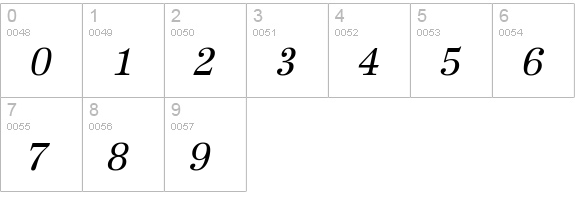
AntiquaStd-Italic is a distinctive, italic variant in the AntiquaStd typeface family \xE2\x80\x94 well suited to design and typography projects.
AntiquaStd-Italic is a classic and elegant font that exudes sophistication and timeless charm. With its graceful slanted style, this italic typeface adds a touch of refinement to any design project. The delicate curves and flowing lines of AntiquaStd-Italic create a sense of movement and fluidity, making it ideal for conveying a sense of grace and beauty. What's even better is that AntiquaStd-Italic is available for free download at FontsMarket.com. This means you can easily access this stunning font and use it in your creative endeavors without any cost. Whether you're designing invitations, crafting a logo, or working on a branding project, AntiquaStd-Italic is the perfect choice for adding a touch of sophistication and elegance to your work. Download it today and elevate your designs with this exquisite font.